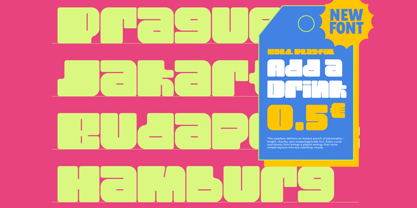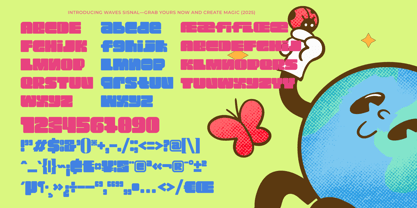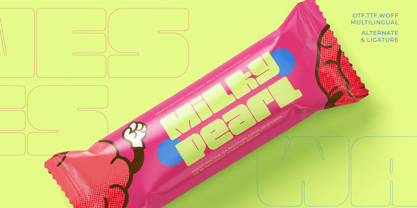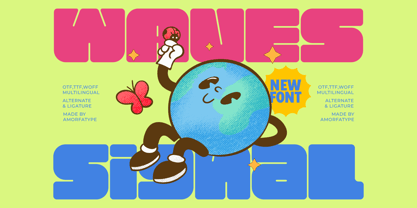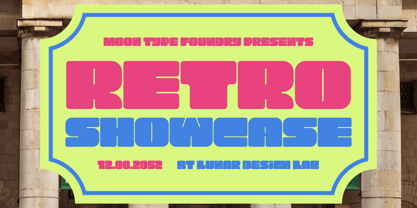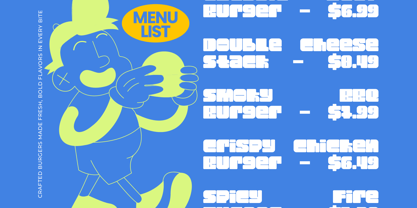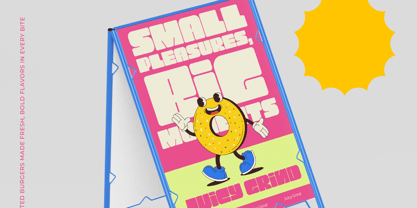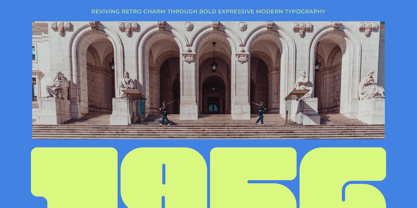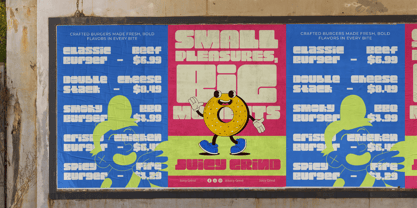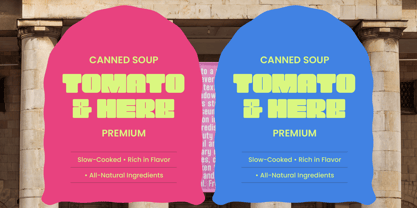
Waves Signal
by Amorfa Type
Waves Signal is a bold modern display font crafted to deliver strong visual impact and contemporary style. With solid shapes, confident curves, and sharp detailing, Waves Signal brings a powerful and energetic presence to any design. Its clean construction and striking proportions create a futuristic yet highly readable look, perfect for dynamic and attention-grabbing typography. Ideal for modern branding, large posters, magazine covers, product packaging, website headers, and bold display headlines, Waves Signal offers stability, clarity, and unmistakable character. Every glyph has been carefully designed to maintain balance and visual harmony across both print and digital media.
Designers: Shiddiq Roihan
Foundry: Amorfa Type